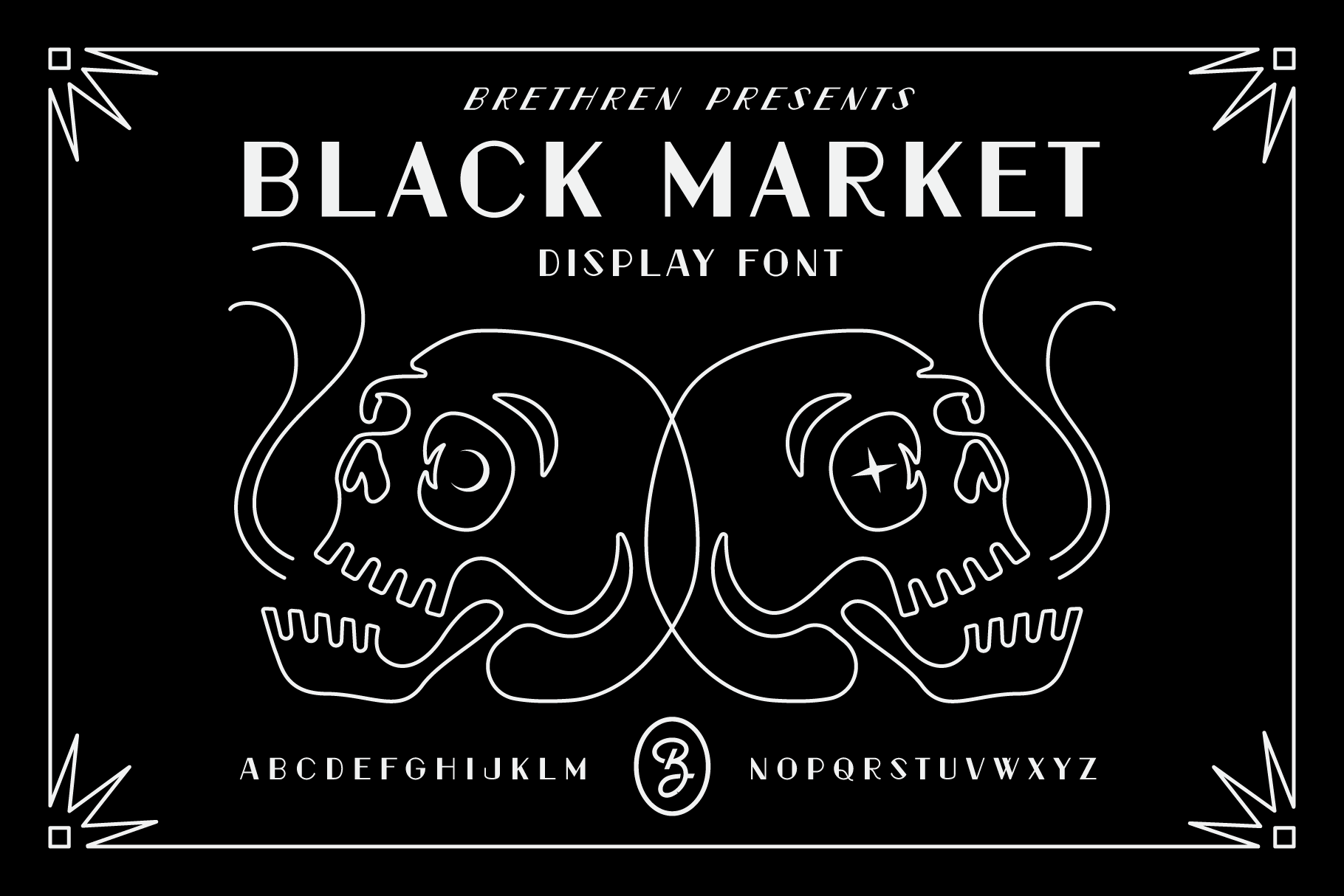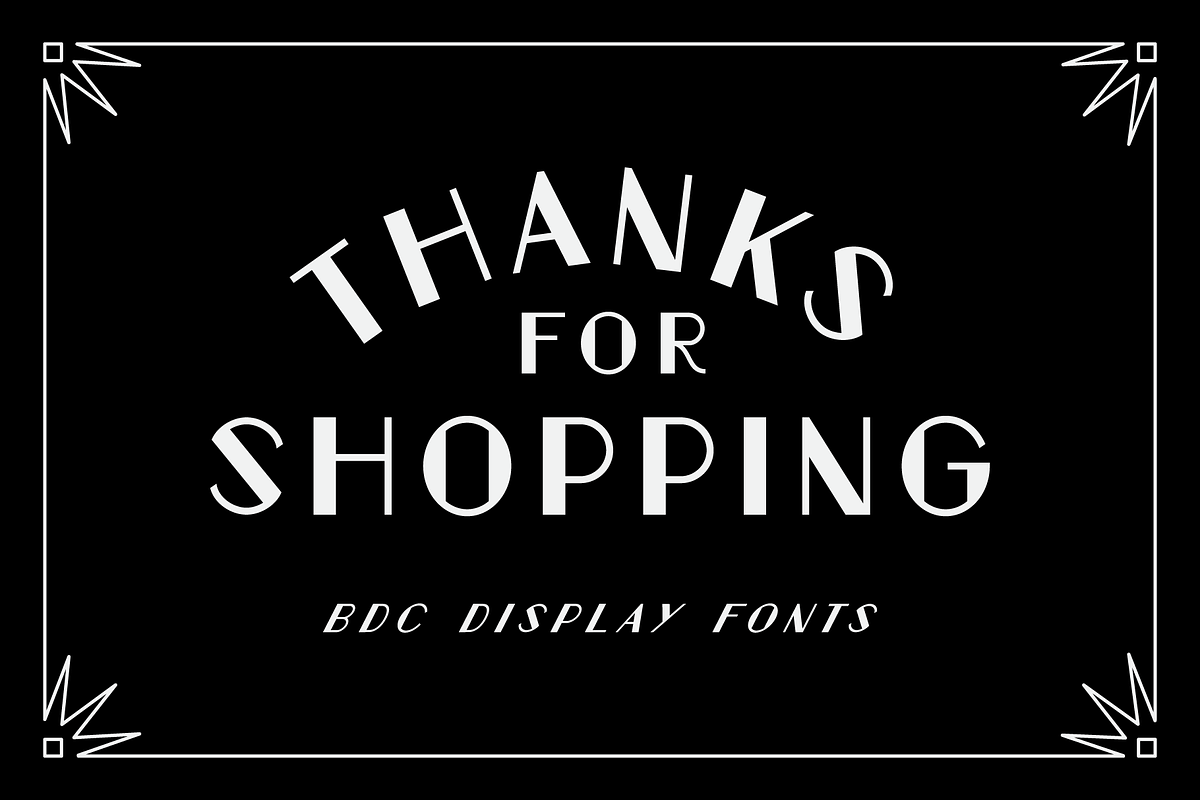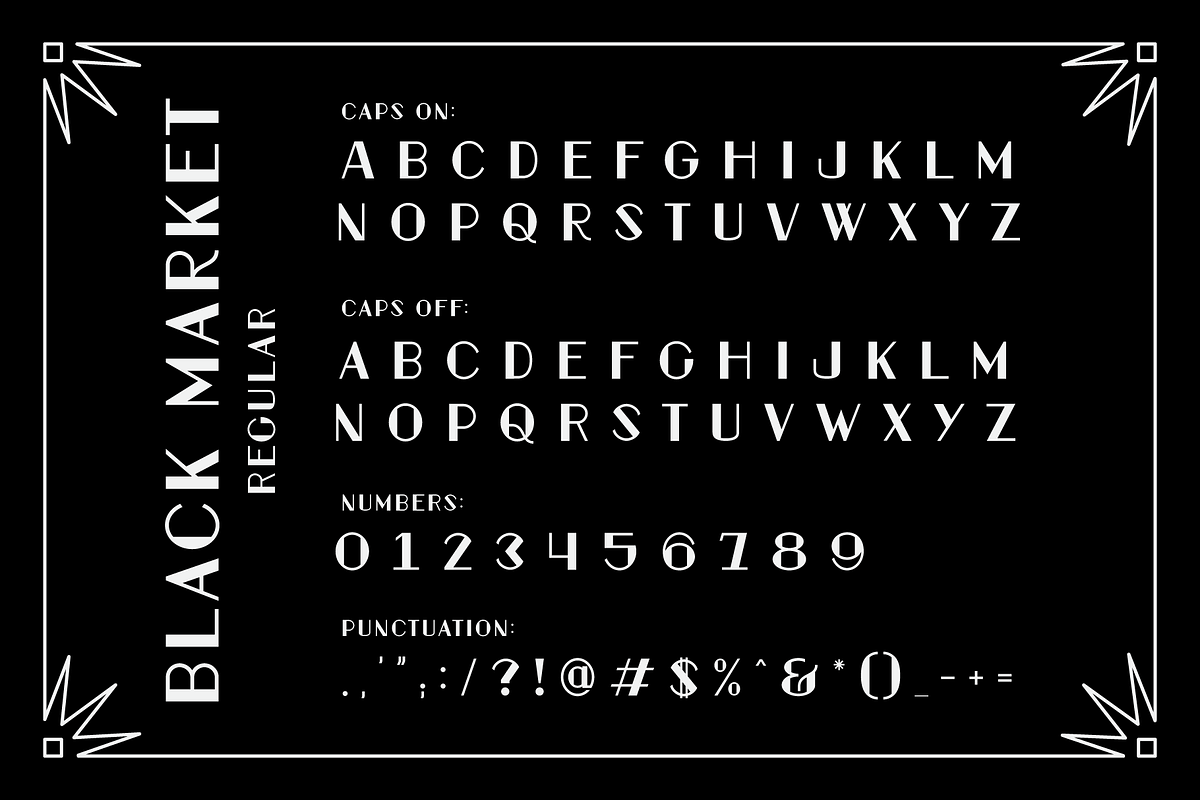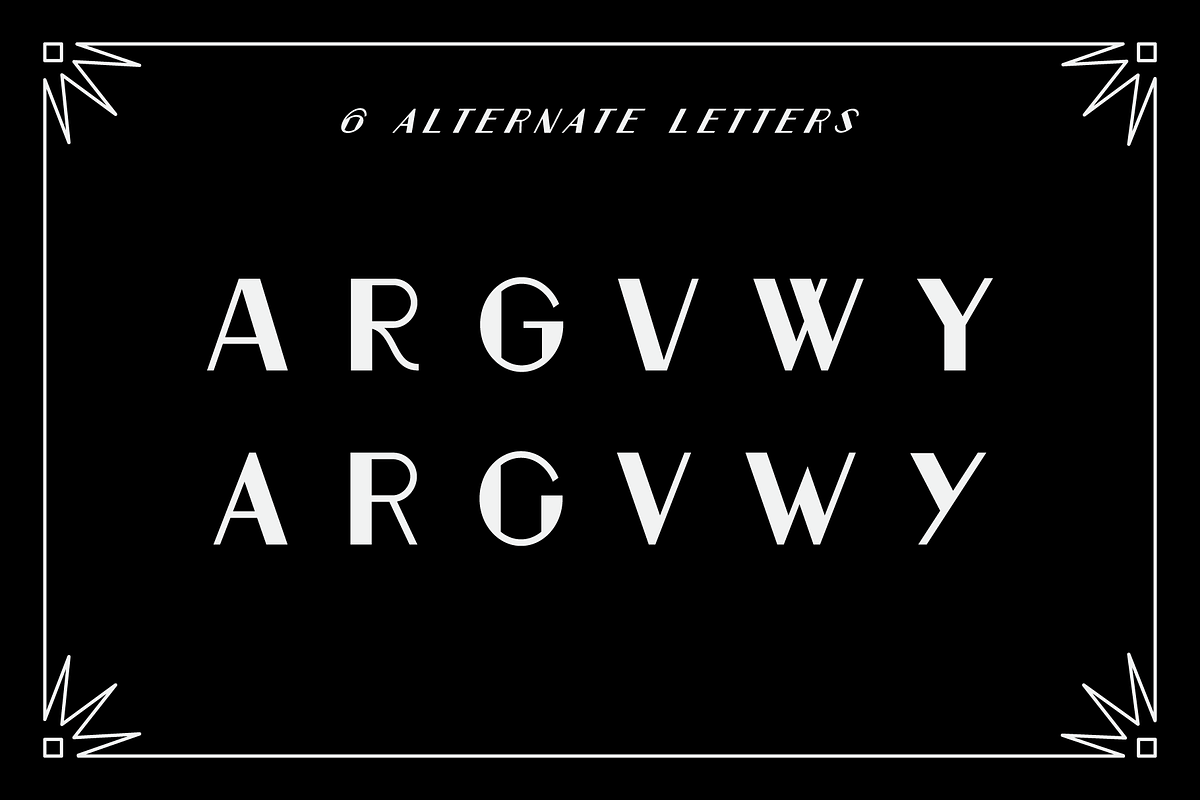
BDC Black Market Display Font
Black Market is a modern take on vintage marketplace signage. Includes numbers and punctuation in regular and italics.lack Market is a sophisticated sans with an art deco appeal. It’s bold yet slender with a broad appeal that lends itself to premium quality products and branding. It can look expensive, smell good and taste delightful. Built with a few variable characters, a full numeral, punctuation and italic version, this simple yet classy typeface is ready to add a satisfying dark touch to your next project.